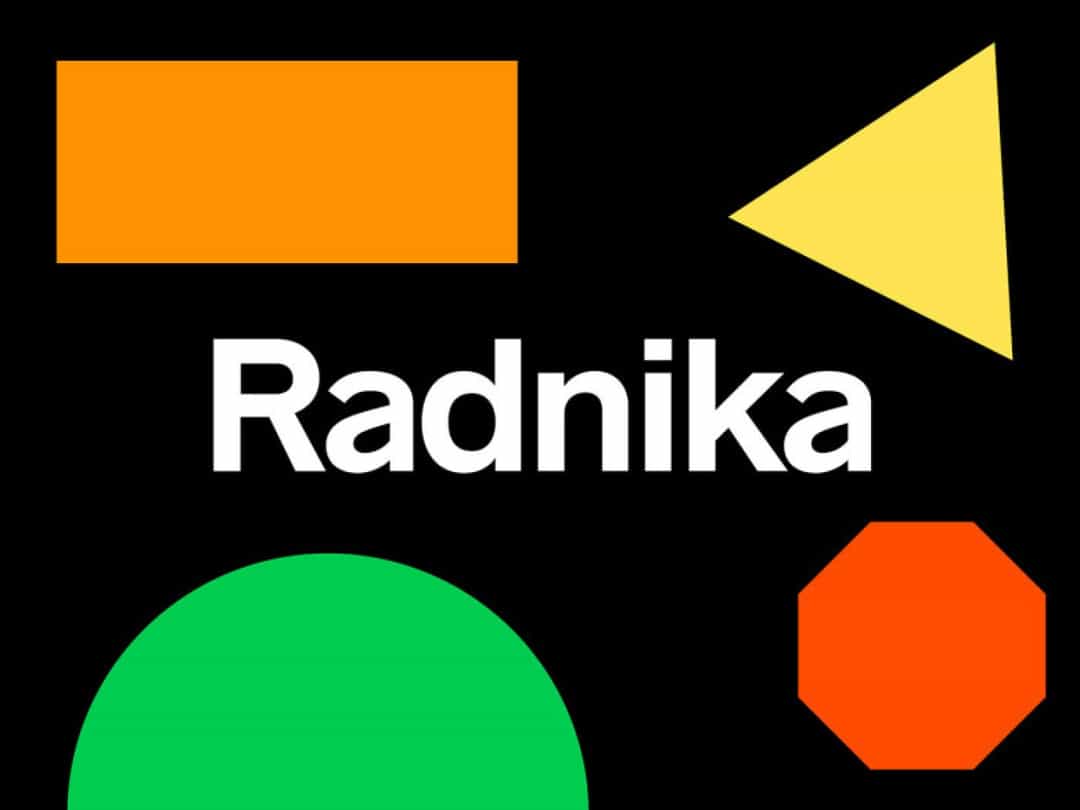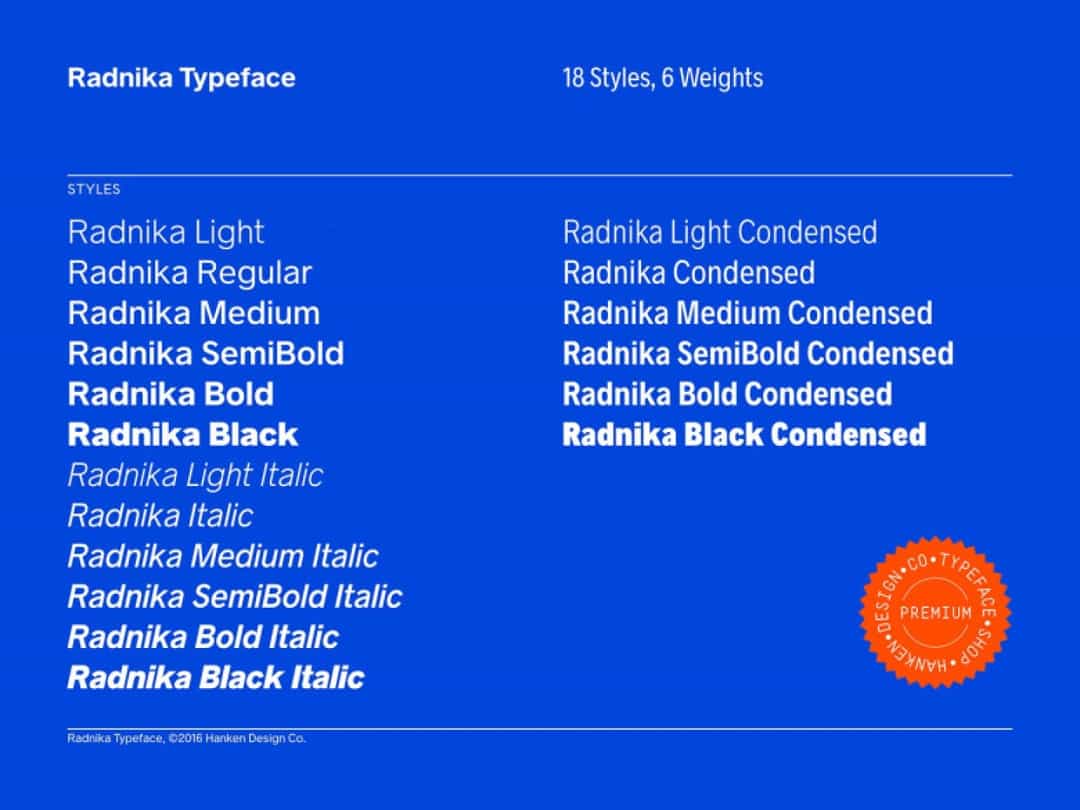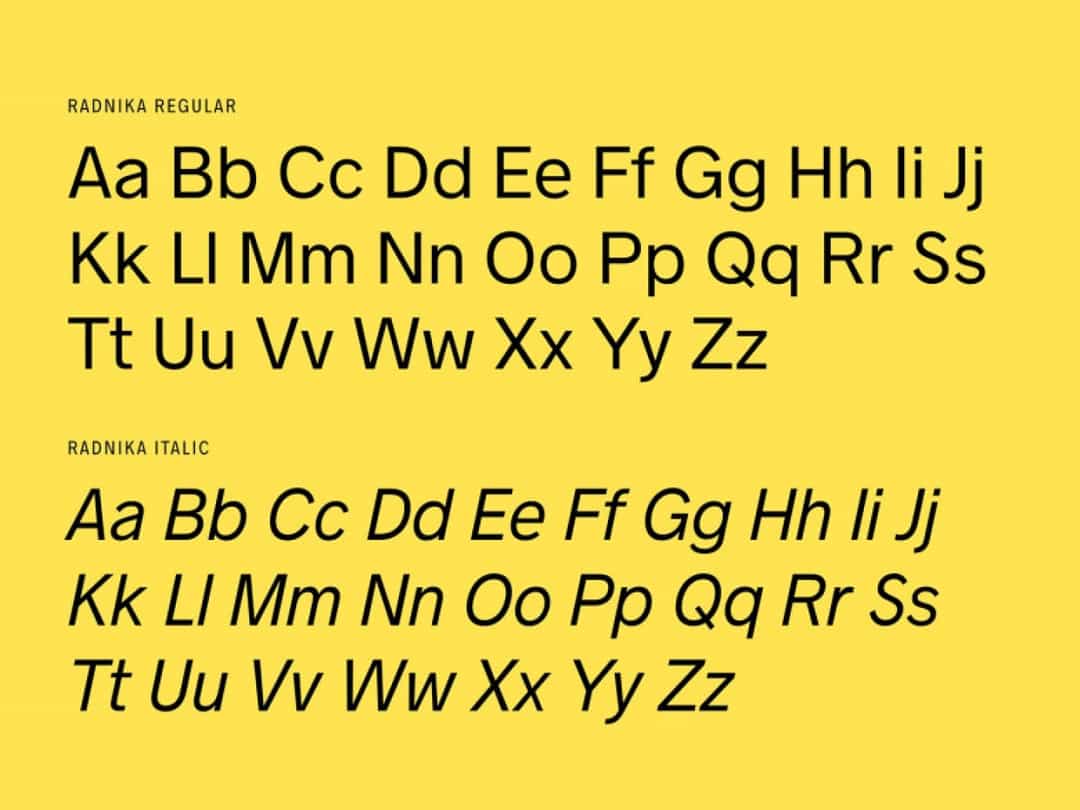
Radnika Font is a minimalist sans serif typeface created by Hanken Design Co. with a clean and elegant appearance. All rights to this font family belong solely to Alfredo Marco Pradil’s foundry; therefore he alone designed this font family. Alfredo created its texture using thick strokes which add vibrant creativity.